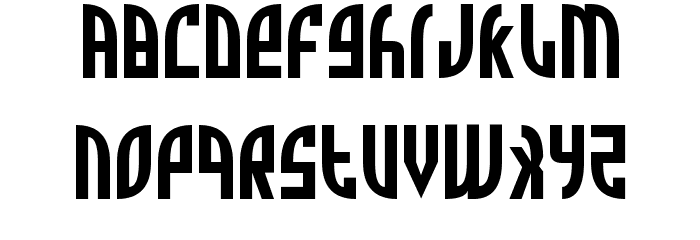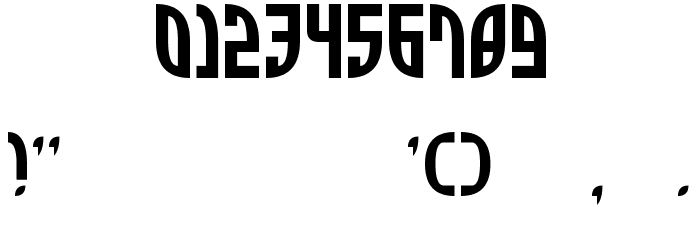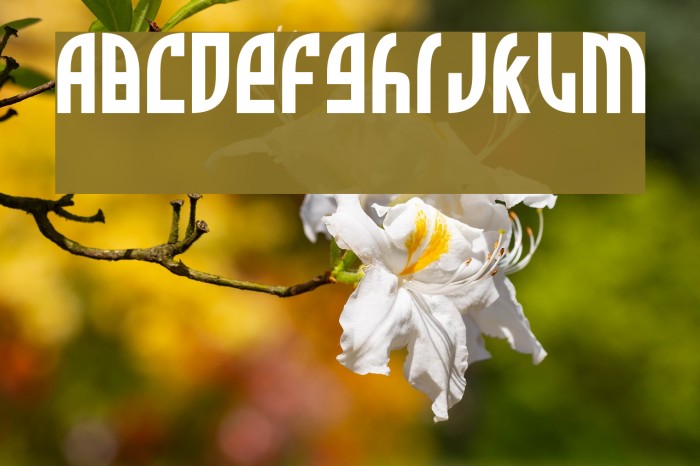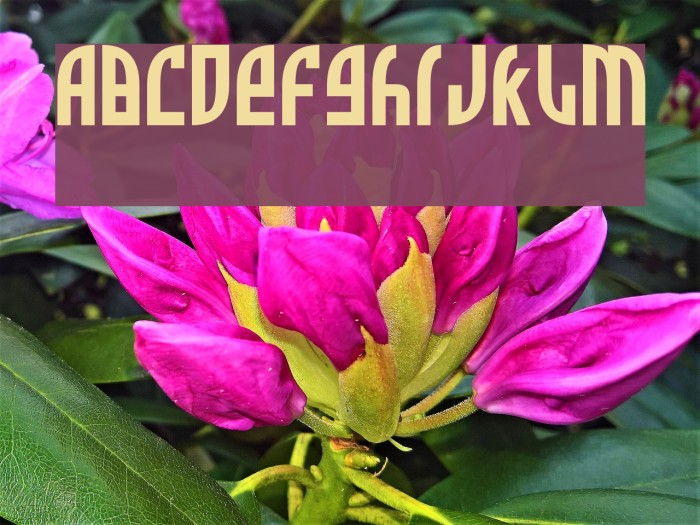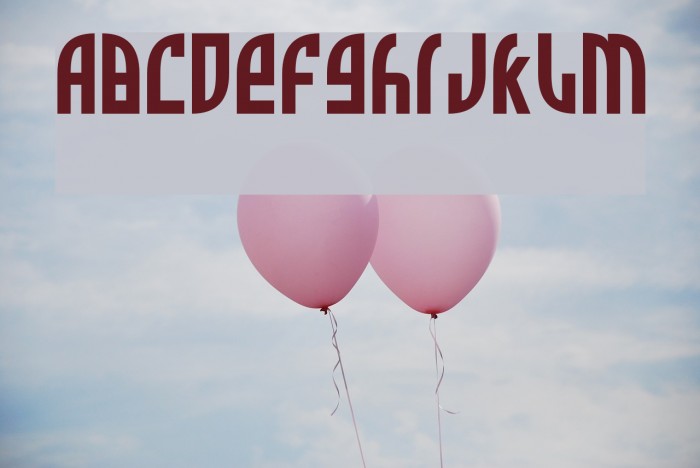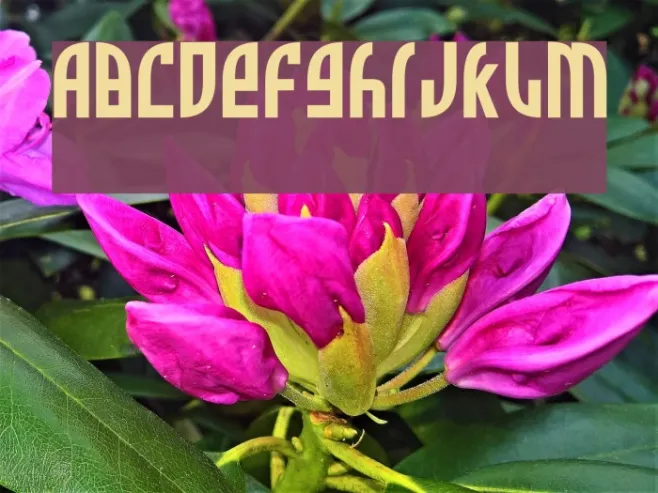
Zone Rider Font
This font features a futuristic and geometric design, characterized by its bold and angular letterforms. The uppercase and lowercase letters share a consistent style, with sharp edges and a uniform thickness that gives a sense of modernity and precision. The numbers and special characters follow the same design principles, ensuring a cohesive look across all glyphs. The font's unique style makes it stand out, with a strong presence that commands attention. Its design is reminiscent of digital or sci-fi themes, making it suitable for projects that require a modern and edgy aesthetic.
A bold, futuristic font with geometric and angular letterforms.
- Proposed Projects: Ideal for sci-fi themed designs, tech branding, video game titles, and futuristic posters.